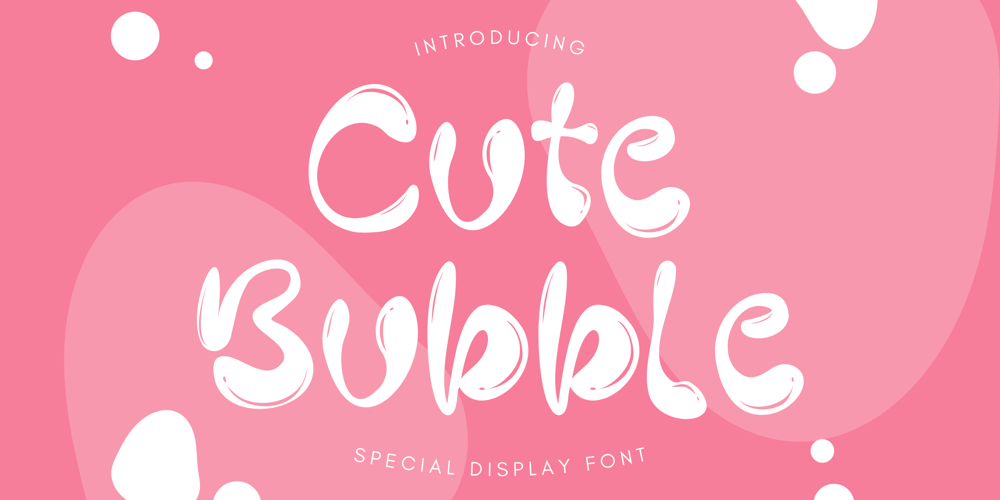
Cute Bubble Font Family was designed by Aditiyo Dwi Putranto and published by Creaditive Design. Cute Bubble contains 1 styles and family package options. Cute Bubble is a fun, playful and friendly display font. It is perfect for any kid or cute design that need bubble effect. Just choose this font, your special cute project can be more cuteness.